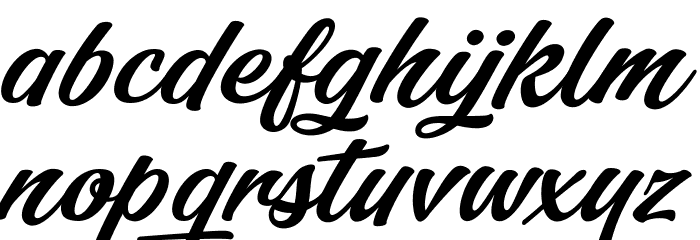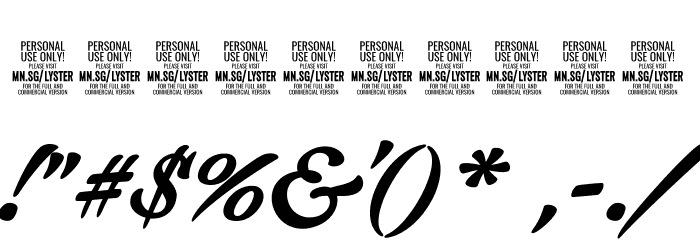
Lyster PERSONAL USE ONLY Font
This font features a bold and expressive script style, characterized by its flowing, cursive letters that convey a sense of elegance and dynamism. The uppercase letters are slightly more formal, with smooth curves and a consistent stroke width, while the lowercase letters maintain a playful and fluid appearance. The font includes a full set of numerals and a variety of special characters, making it versatile for different design needs. Its bold weight and high contrast between thick and thin strokes enhance readability and make it suitable for eye-catching designs.
A bold, expressive script font with high contrast and flowing cursive letters.
- Font: Lyster PERSONAL USE ONLY
- Proposed Projects: Ideal for branding, invitations, greeting cards, and decorative headlines.
- Category: Script
- Use Case: Logos, Headlines, Invitations